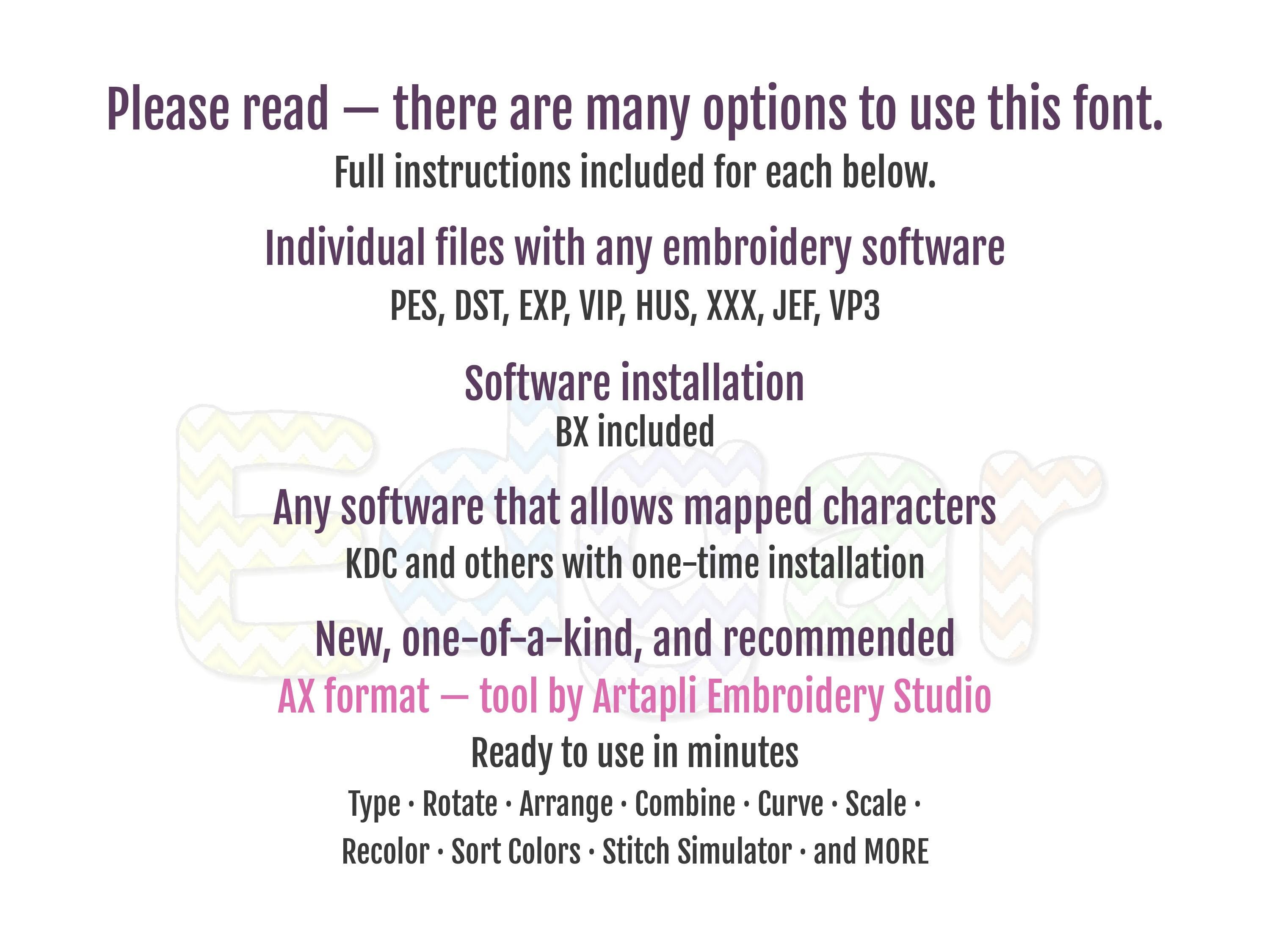
BX included Chevron RIC RAC Font light sketch outline machine embroidery designs striped ricrac font alphabet letters sizes 1.5, 2, 3, 4 inches
This is quick stitch design, the background fabric looks through. Stunning effect!
Chevron lines are part of the embroidery.